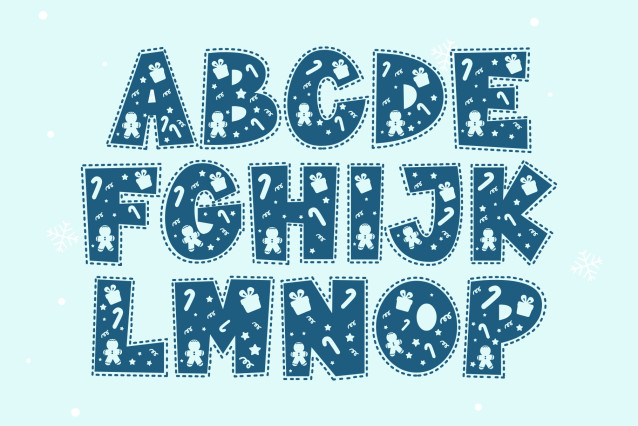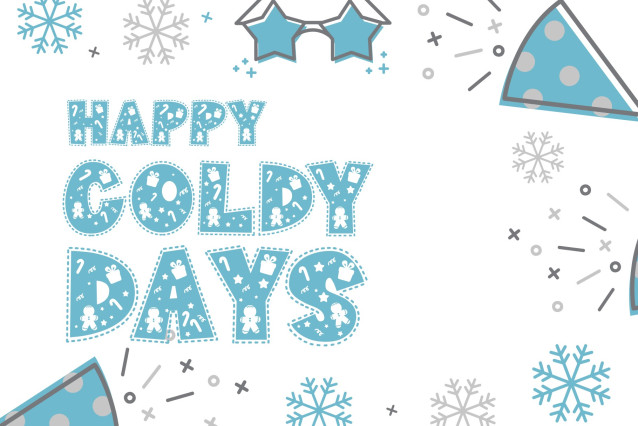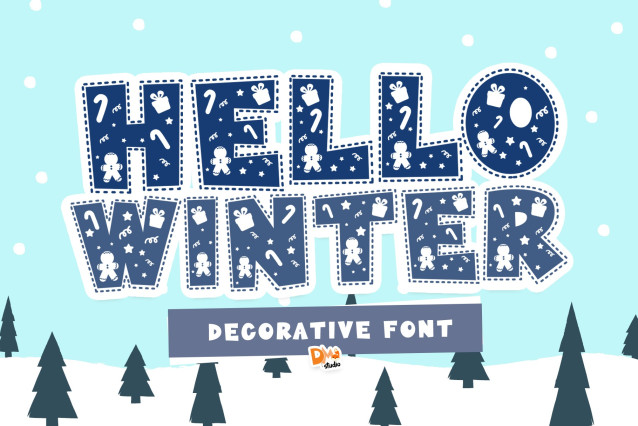
Hello Winter Decorative Font
Hello Winter Decorative Font is a cheerful and cozy font that captures the magic of the winter season. With its rounded shapes and friendly style, this typeface is perfect for winter-themed crafts, holiday greetings, seasonal branding, warm apparel designs, and more. Its inviting appearance brings a sense of joy and comfort to any project during the chilly months.